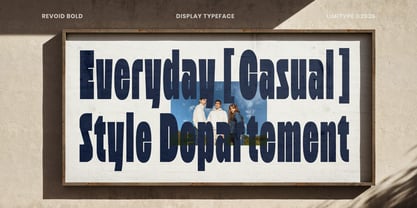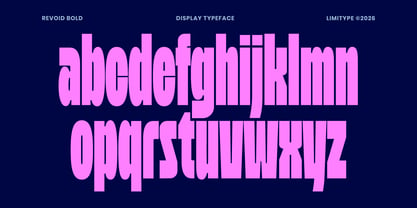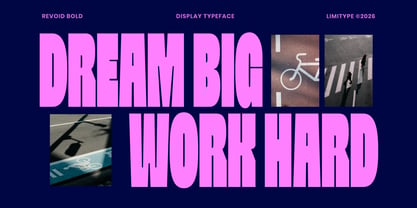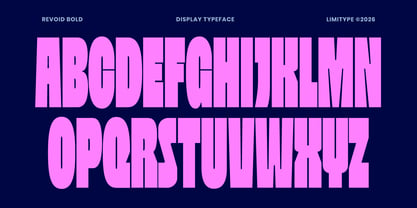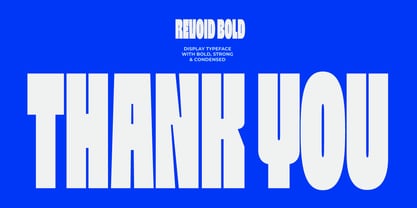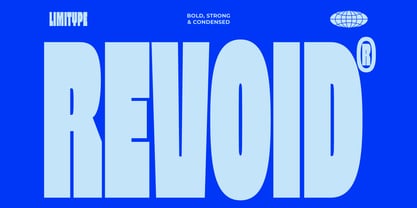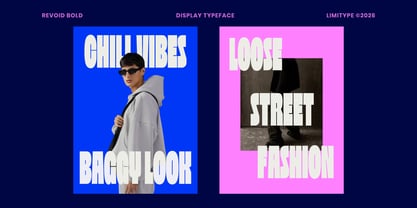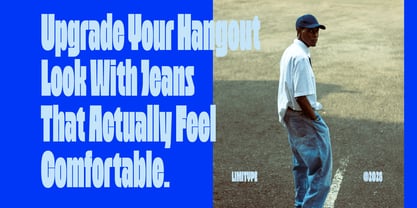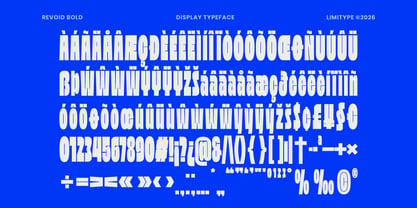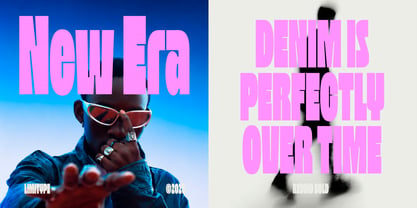
Revoid
by limitype
The Revoid Font Family was designed by Muhammad Muammar, Furqan Sudirman and published by limitype. Revoid contains 1 styles. More about this family
Revoid is a bold condensed display font built with tall, narrow, and tightly packed letterforms. Its dramatic vertical proportions create a powerful visual presence, making it perfect for striking headlines, posters, magazine, editorial designs, branding, logos, and bold graphic compositions.
Designers: Muhammad Muammar, Furqan Sudirman
Foundry: limitype